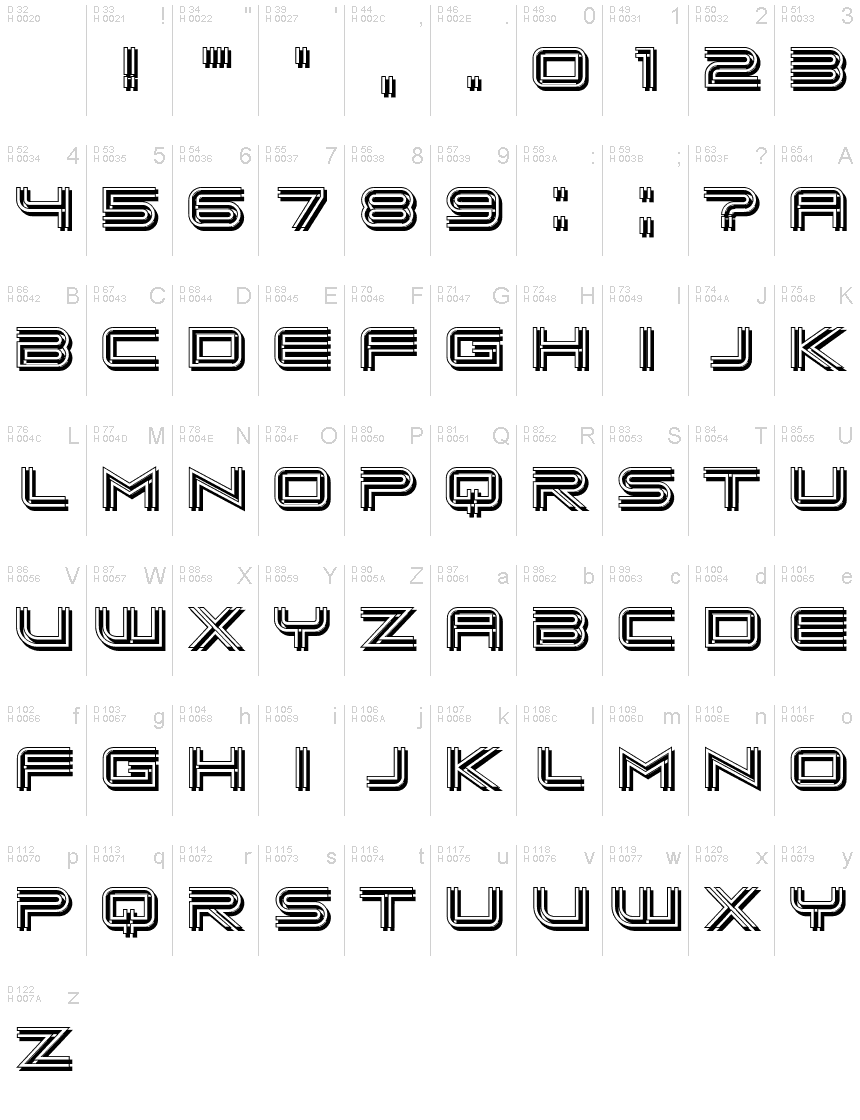
Moto Race Regular
Moto Race, designed by Vladimir Nikolic, is a bold display font that commands attention with its expanded width and striking weight. The font's robust character construction and dynamic design evoke the exhilarating spirit of motorcycle racing and speed. With its sleek lines and sharp angles, Moto Race is visually impactful, offering a contemporary edge to any project.
The aesthetic appeal of Moto Race lies in its ability to convey motion and energy through typography. Its expansive letterforms provide a sense of stability and presence, making it an excellent choice for titles, headers, or any application where a strong visual statement is required.
Ideal for creative projects that demand impact - from automotive branding to event posters - Moto Race’s style is versatile enough to suit various themes while maintaining its distinctive character. The font's assertive style ensures it stands out in both digital mediums and print materials, promising designers an unforgettable typographic tool for their arsenal.